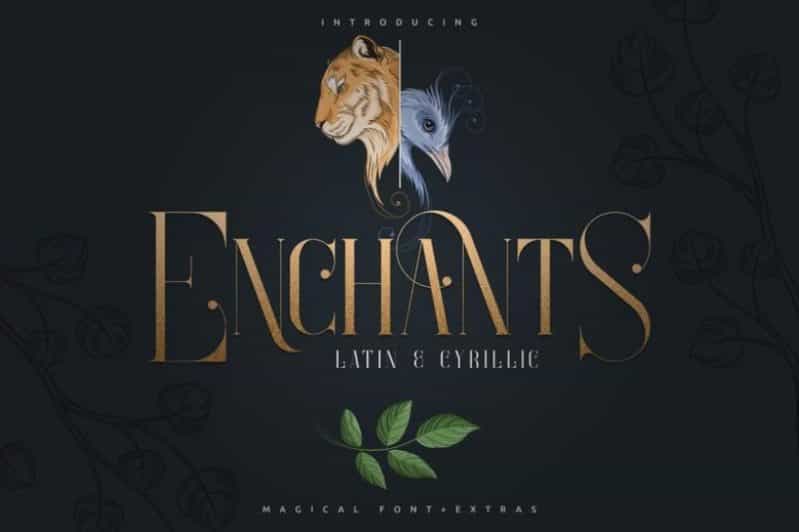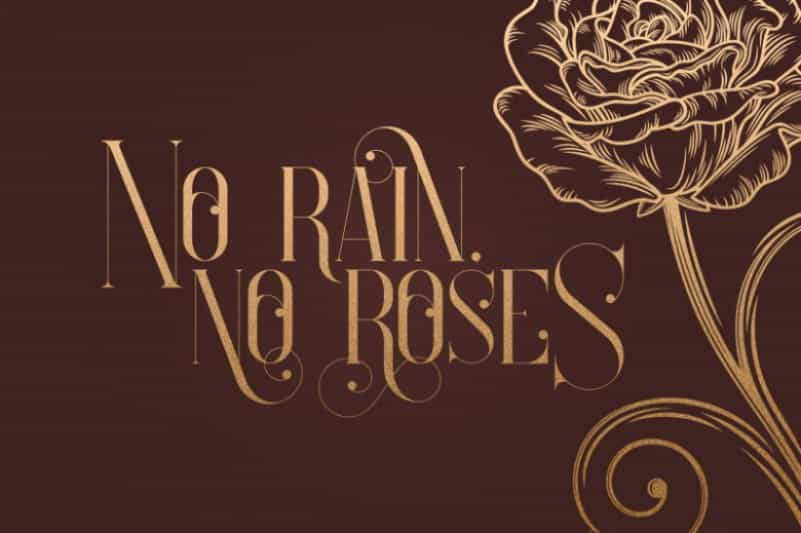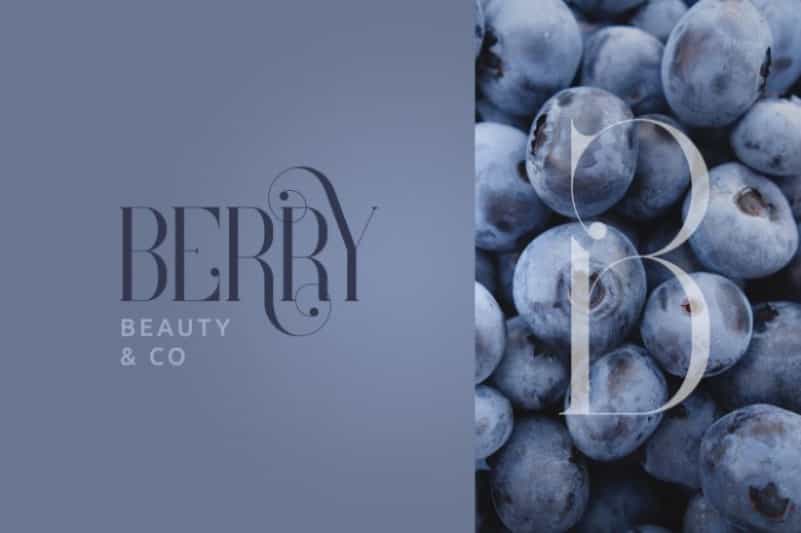
Enchants Magical Serif Font
Enchants is a classic, neat font with both the latin and Cyrillic support, , packed with additional glyphs and graphic assets. It is a very multi-purpose font that looks good in both big and small sizes.